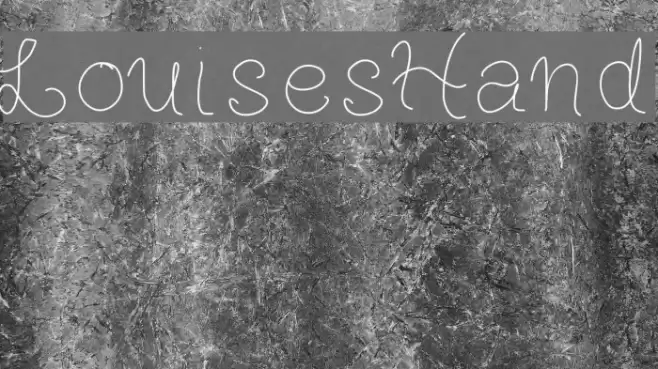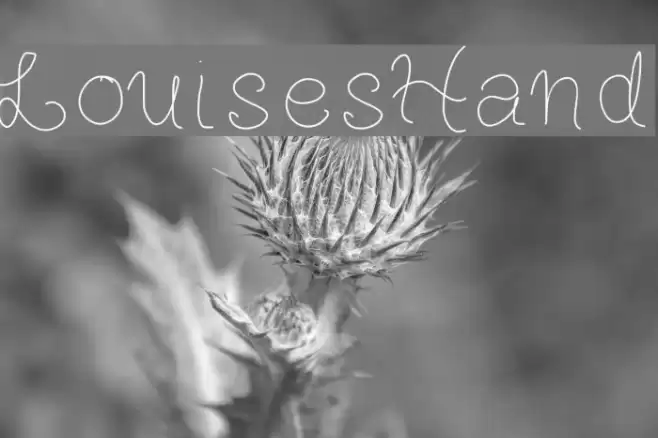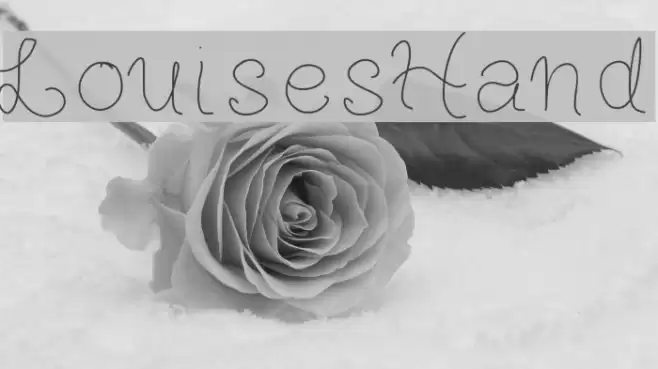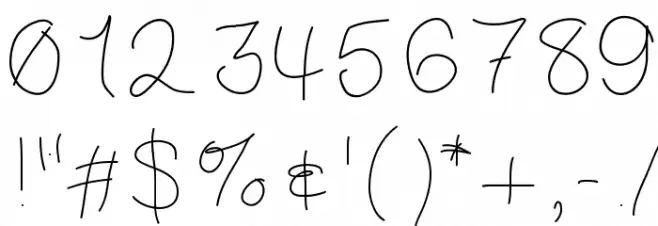
LouisesHand Font
LouisesHand Description
This font features a whimsical, handwritten style with a playful and casual appearance. The characters are crafted with smooth, flowing lines that give a sense of movement and personality. Each letter is distinct, with unique loops and curves that add to the font's charm. The uppercase letters are slightly larger and more ornate, while the lowercase letters maintain a consistent, friendly look. Numbers and special characters are designed to match the overall aesthetic, making the font versatile for various uses. The font's light weight and airy feel make it ideal for projects that require a personal touch.
A whimsical, handwritten font with smooth, flowing lines and playful curves from Uncategorized fonts.
- Proposed Projects: Ideal for greeting cards, invitations, personal branding, and creative projects that require a friendly, informal touch.
- Overall Style: Casual, Playful
- Use Case: Headlines, Invitations, Personal Branding